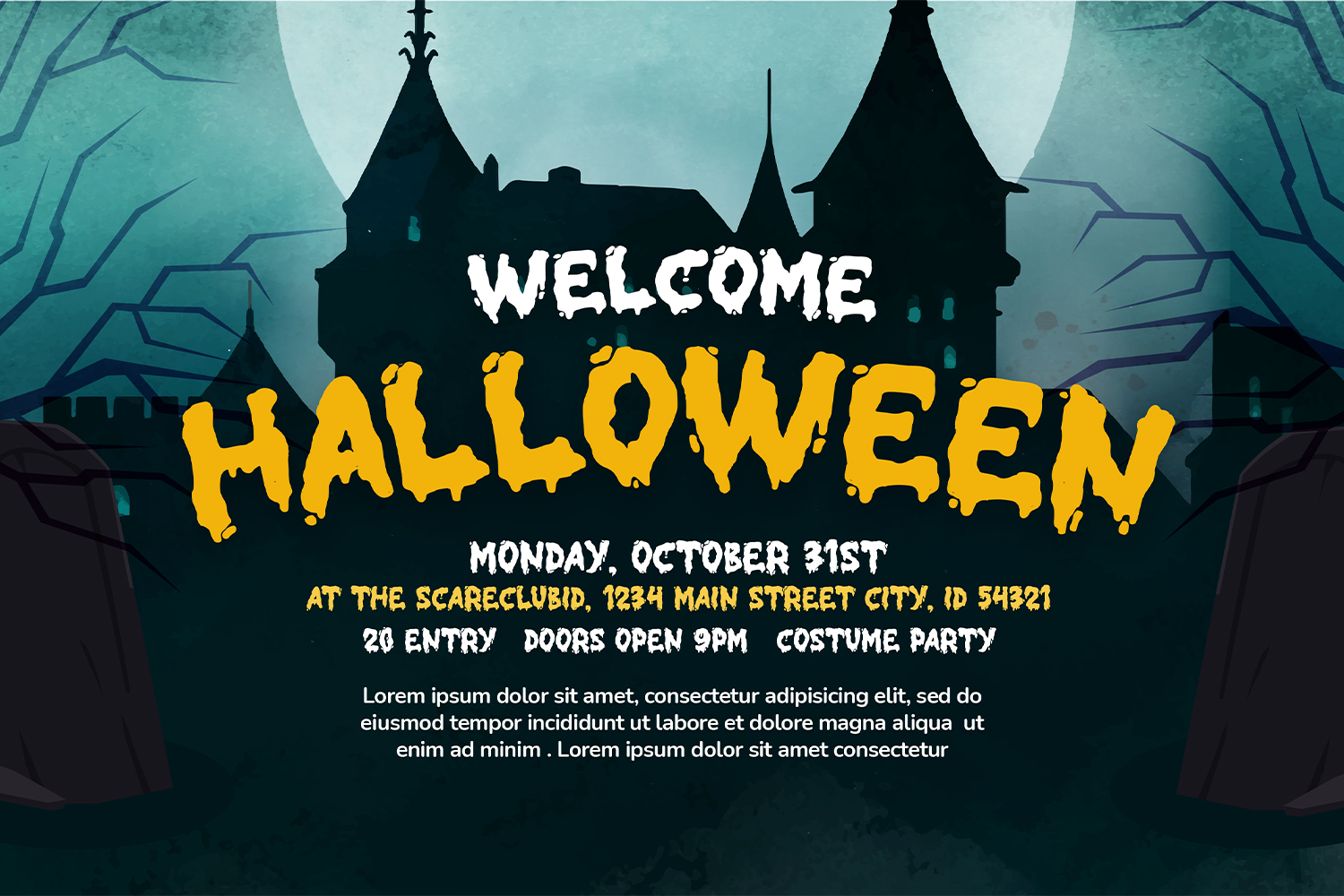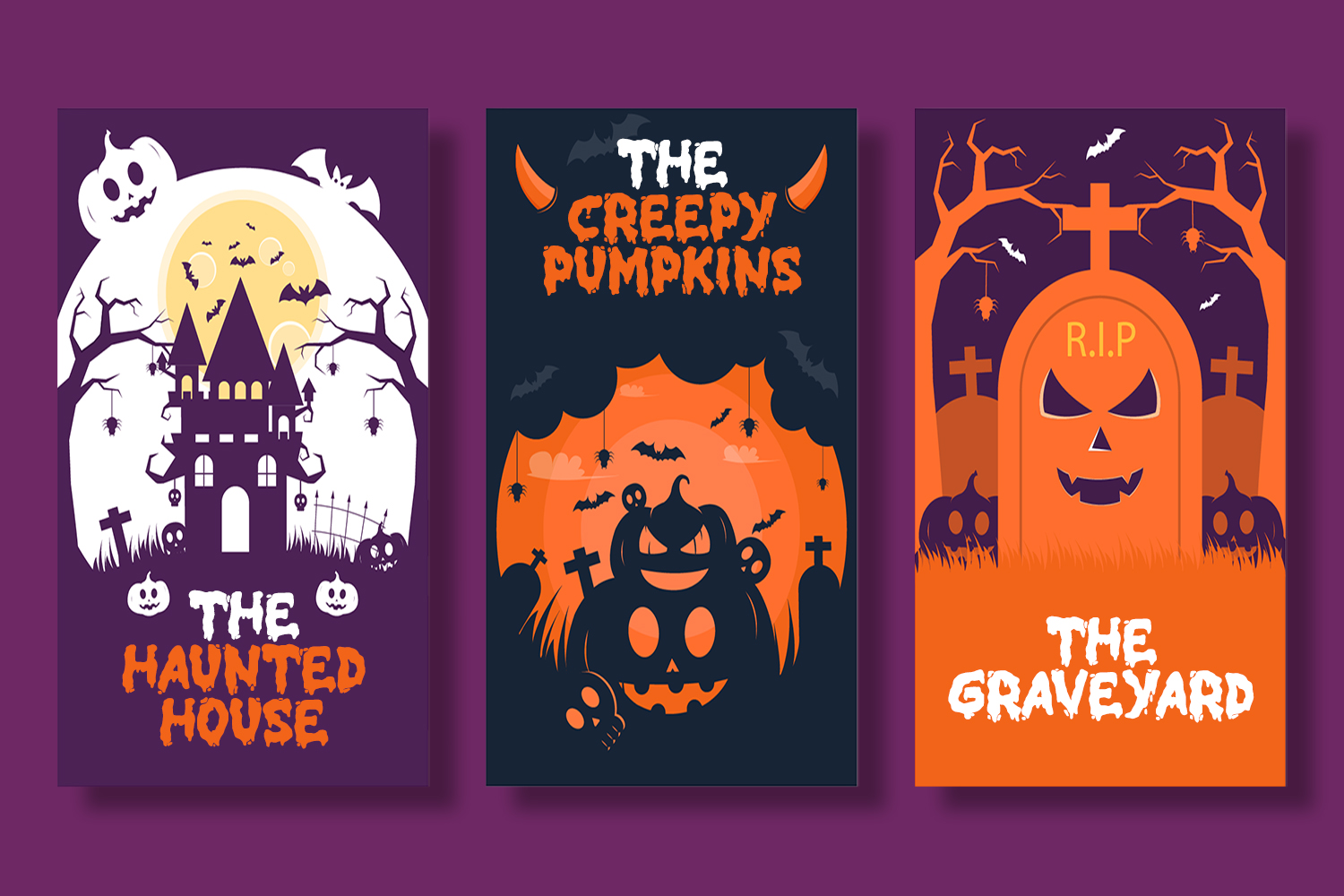
Werewolf Font
Werewolf Display Font is a stunning horror display font with cute and playful feels. It will be perfectly used for Branding, Logo Design, Lettering, Logotype, Clothing, Poster, magazine, packaging, posters, shopping bags, t-shirts, book covers, photography, special events and other design project.